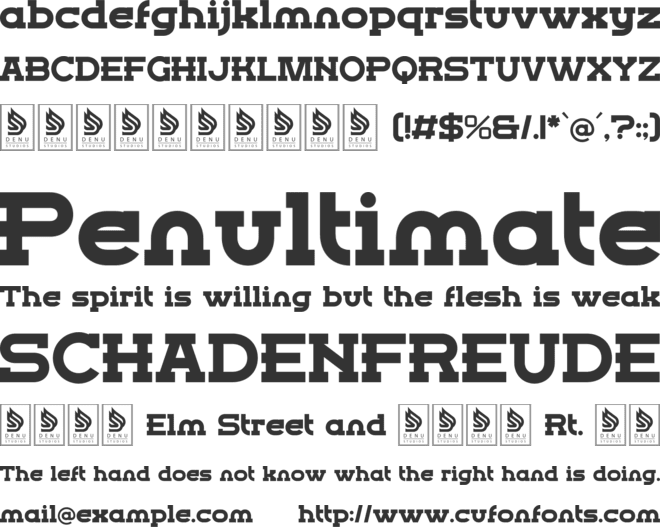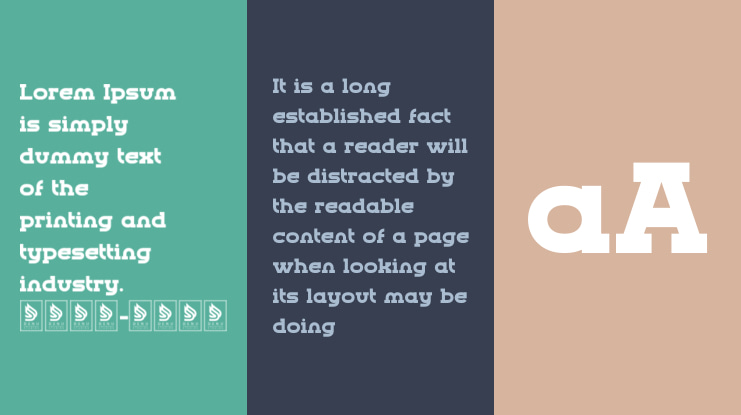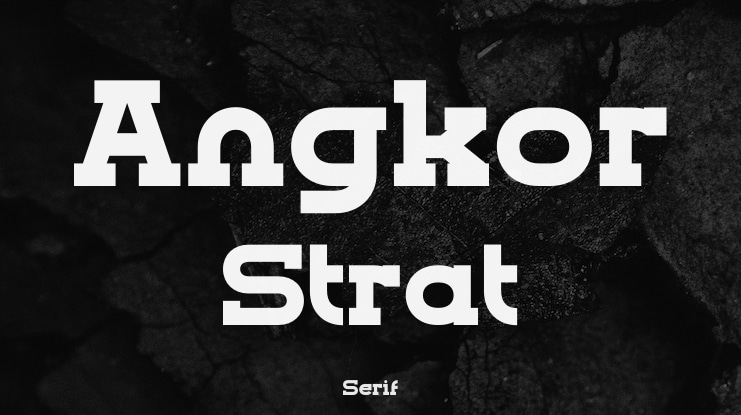
Angkor Strat | Display Slab Typeface product packaging, mugs, quotes, posters, shopping bags, t-shirts, book covers, name card, invitation cards, greeting cards, label, photography, watermark, special events, and all your other lovely projects that need a Display Slab Typeface taste.